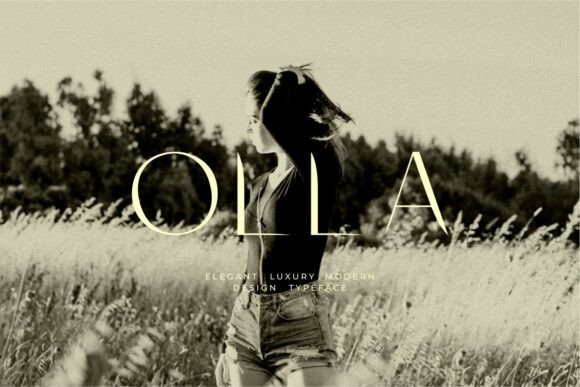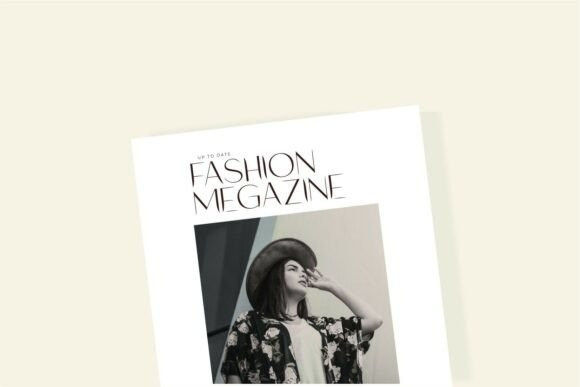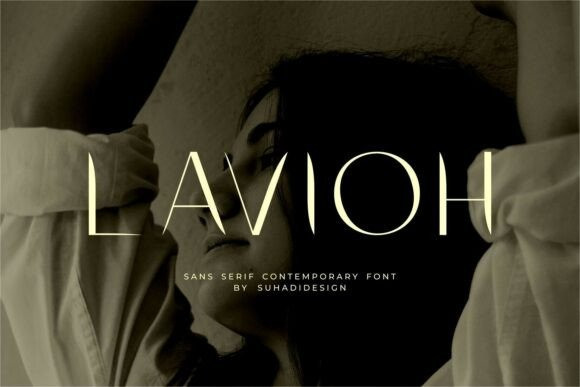
Lavioh Font
Lavioh Font is a sleek sans serif, contemporary font with sharp, refined strokes and elegant spacing. Perfect for high-end branding, editorial layouts, and modern logos, it blends minimalism with a sophisticated artistic edge.